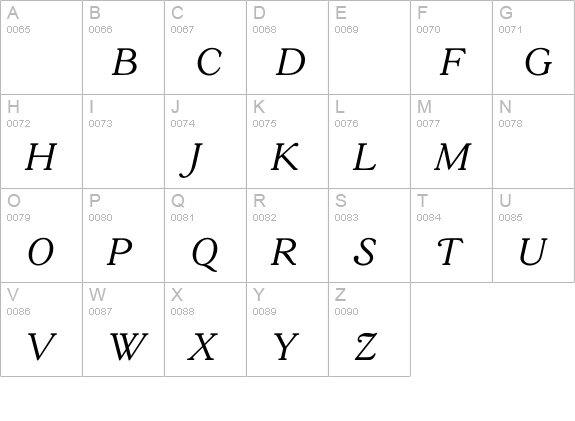
GoudY38BookItalic Font Details
GoudY38BookItalic is a classic and elegant italic font that exudes sophistication and charm. Its slender and graceful letterforms make it perfect for adding a touch of refinement to any design project. The italicized style adds a sense of movement and fluidity, making it ideal for conveying a sense of elegance and grace. This font is freely available to download at FontsMarket.com, allowing you to easily incorporate it into your creative projects without any cost. Whether you're designing invitations, creating branding materials, or crafting editorial layouts, GoudY38BookItalic is sure to elevate your work with its timeless appeal and effortless beauty. Download it now and add a touch of sophistication to your designs.